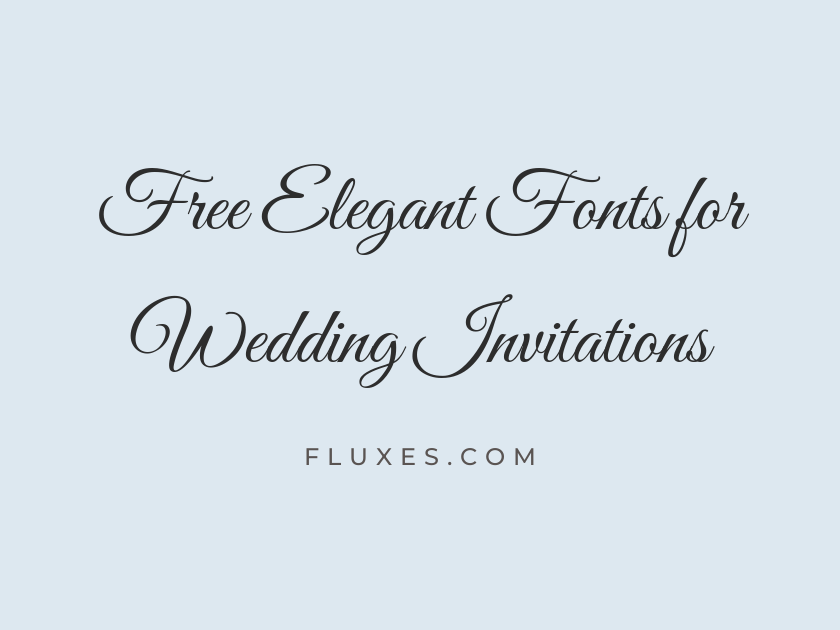
58 Best Free Elegant Fonts for Wedding Invitations
Wedding stationery is one of the few places where typography carries the whole emotional weight of a project. A single script or serif sets the tone for the entire celebration before a guest reads a single word, whispering “formal black tie” or “barefoot on the beach” long before the RSVP card comes into view. The good news for couples and designers working on a budget is that some of the most refined lettering available anywhere lives on Google Fonts, free to download and license for print.
What follows is a wide-ranging survey of elegant free fonts for wedding invitations, save-the-dates, place cards, and the rest of the paper suite, spanning romantic calligraphy scripts, restrained classical serifs, and a few clean sans serifs for the practical details.
Together forever, from this day forward
Few free scripts get requested by name as often as this one. Its long, confident swashes and calligraphic flow make it a go-to for envelope addressing and monogram lines, though it earns its keep best in generous sizes rather than fine print.
Two hearts, one beautiful beginning
Alex Brush reads like a fountain pen dipped in ink rather than a digital script, with a loose, brush-tipped rhythm that feels handwritten and warm. It pairs beautifully with a plain serif for body copy, letting the invitation have one clear voice for feeling and one for information.
Please join us in celebrating our marriage
Allura is slimmer and more upright than many bridal scripts, which gives it a slightly more modern, delicate air. It suits invitations built around soft blush or sage palettes where a heavier script would feel too bold.
Save the date for our forever
This is the script that made its name on engraved formal invitations long before it arrived on Google Fonts, and it still carries that pedigree. The tall ascenders and dramatic entry strokes make it a natural fit for names and monograms rather than long sentences.
A love story, written for you
Parisienne has a rounder, friendlier curve to its letterforms than the more severe calligraphy scripts, giving it a soft, romantic energy without tipping into casual. It works well for a bride and groom’s first names set large on a menu or program cover.
Elegantly yours, always and forever
Tangerine is thin, light, and airy, almost fragile on the page, which makes it gorgeous for a monogram or a single line of verse but genuinely difficult to read at small point sizes. Reserve it for short, ceremonial text and give it plenty of white space.
Join us as we say I do
Sacramento has a compact, single-story rhythm with short, tidy loops, which makes it more legible in longer phrases than most formal scripts. It suits modern, minimalist wedding suites that still want a touch of handwriting.
Wedding bells are ringing for us
There is a slightly retro, storybook charm to Rouge Script, with looping capitals that feel drawn rather than typed. It flatters vintage or garden-party themes especially well.
Forever starts with a single yes
Italianno leans dramatic, with exaggerated flourishes on its capital letters that demand a bit of room to breathe. Use it sparingly, on a couple’s initials or the word “Wedding” itself, and let a quieter serif carry the rest of the card.
With love and laughter, always
Mrs Saint Delafield looks genuinely hand-lettered, with an irregular, almost impulsive line quality that avoids the stiffness some digital scripts fall into. It brings personality to a save-the-date without feeling overworked.
Two families, joined as one
This script sits on the fancier end of the spectrum, with elaborate connecting strokes suited to formal, black-tie invitations. It is best kept to short lines; a whole paragraph in Herr Von Muellerhoff quickly turns into a puzzle for guests to decode.
You are cordially invited to celebrate
Meddon has an old-world, letterpress feel, as though it were cut from copperplate rather than drawn freehand. It is a quietly elegant choice for couples who want romance without excess ornamentation.
Kristi
Happily ever after begins here
Kristi
Kristi is delicate and fast-moving, with thin strokes that suggest a quick, confident hand. It works nicely as an accent script layered over a photograph or watercolor background where a heavier font would feel too dense.
Our wedding day, our love story
Marck Script is friendlier and rounder than most calligraphy fonts on this list, with a casual bounce that suits laid-back, outdoor, or destination weddings. It stays legible even at modest sizes, which is not always true of its more ornate cousins.
Love, honor, and cherish forever
Norican has a distinctive art-deco curl to its letters, giving it a vintage glamour that suits a 1920s-inspired or Gatsby-themed wedding. It reads best as a display accent rather than as a paragraph font.
Whisper
A whisper of love, a lifetime together
Whether the goal is a formal, engraved-look suite or something softer and hand-lettered, these free Google Fonts cover the full range of elegant wedding typography without any licensing cost standing between a couple and their finished invitations.